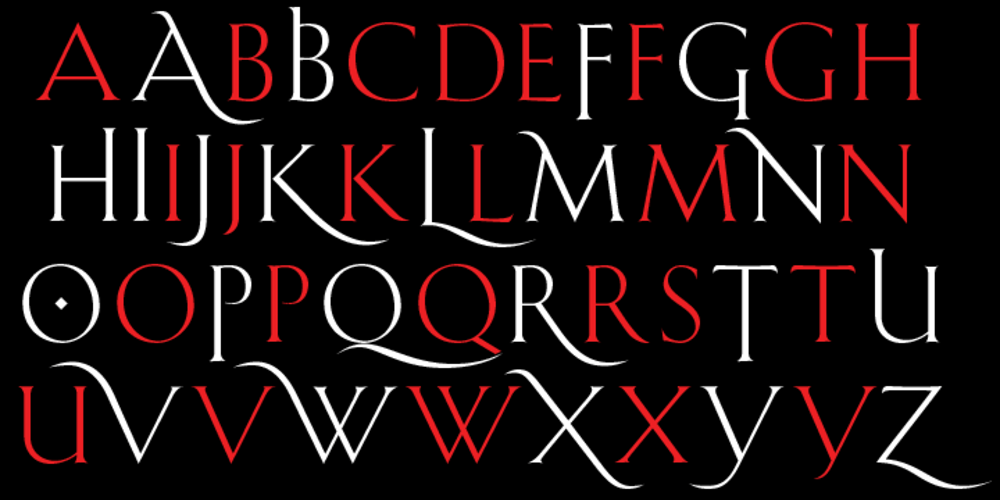
Shàngó
Shàngó font
Shàngó Font Family was designed by Jason Castle and published by CastleType. Shàngó contains 3 styles and family package options. Shàngó, inspired by the initials from Professor F.H. Ernst Schneidler’s classic design released in 1936 as Schneidler-Mediaeval mit Initialen, is an elegant design that looks best when used at large sizes, as the original name suggests. Shàngó is available in two styles: Classic, available in 3 weights, and Gothic, available in 4 weights. Shàngó is a member of the extended Shàngó family (Classic, Chiseled, Sans, Gothic).